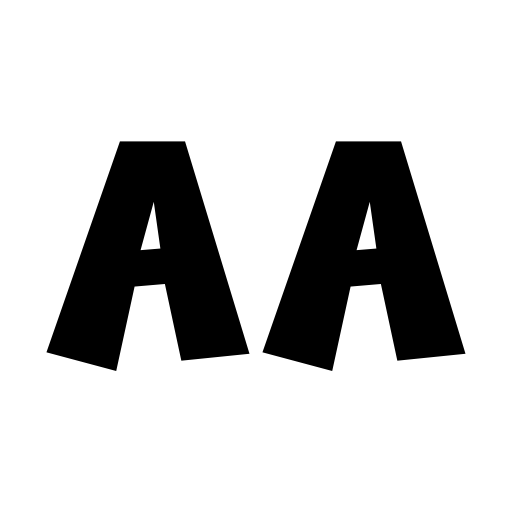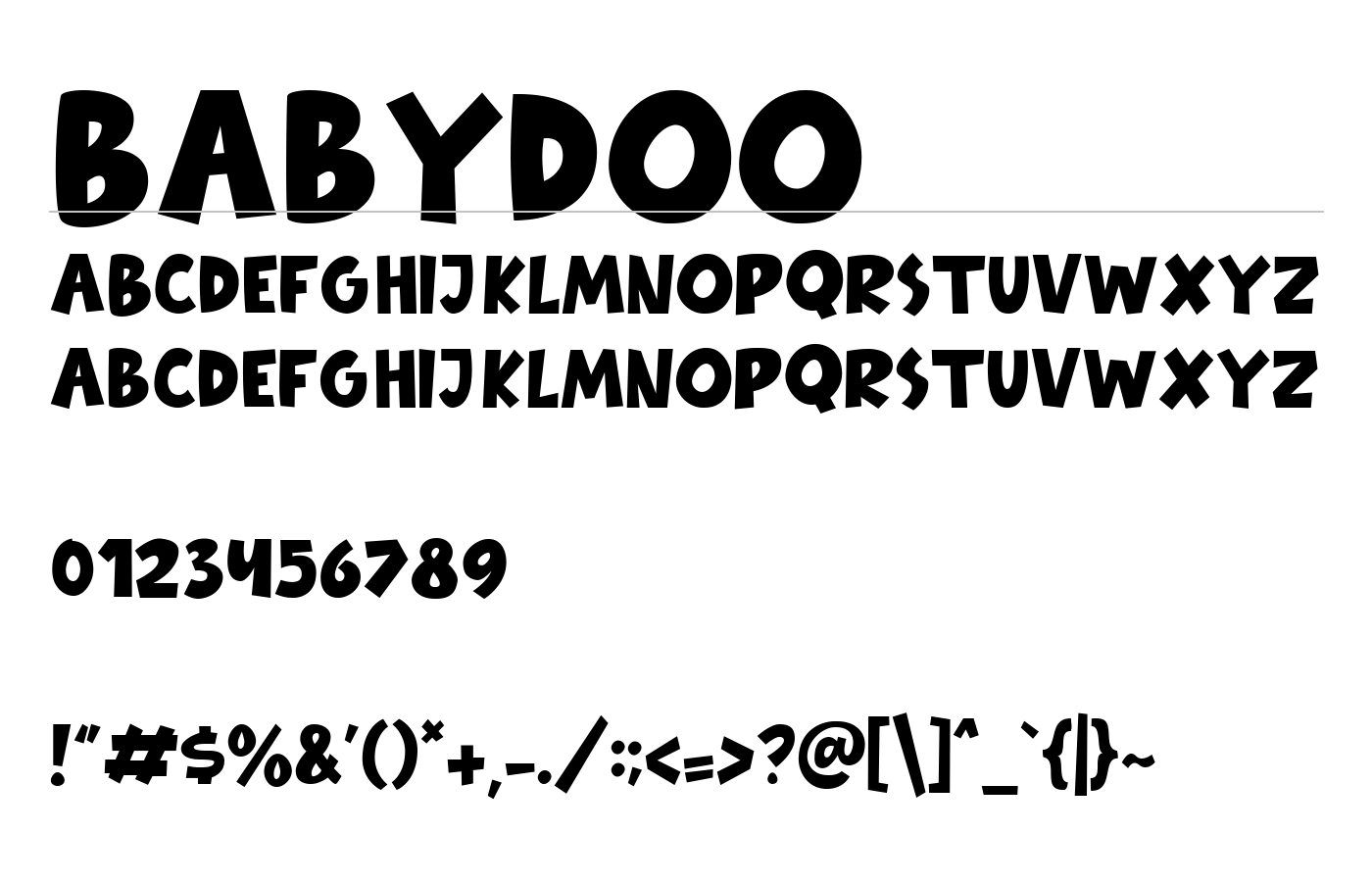
Babydoo is a bold, playful sans serif font with chunky, irregular letterforms that evoke a fun and casual vibe. Its uneven strokes and unique quirky shapes make it perfect for children’s books, party invitations, or any design aiming for a friendly, lively tone. This font stands out in headlines and logos where a cheerful, approachable personality is desired.
Babydoo Font
About Babydoo Font